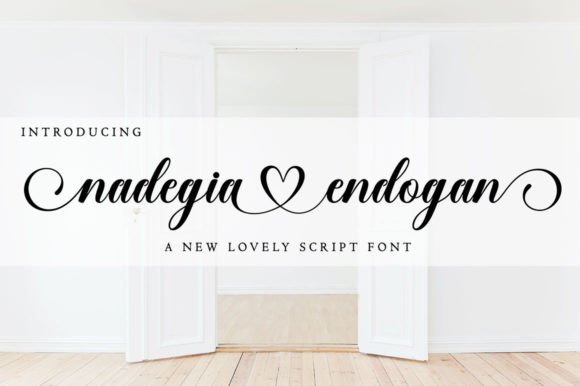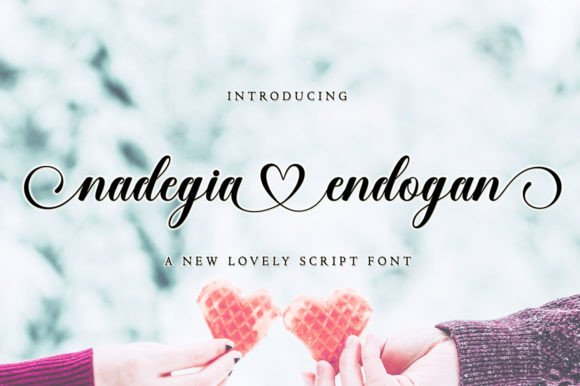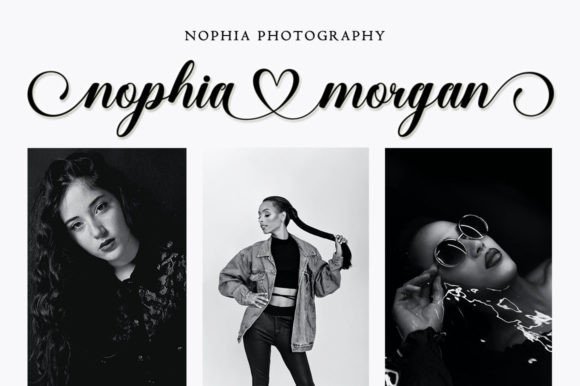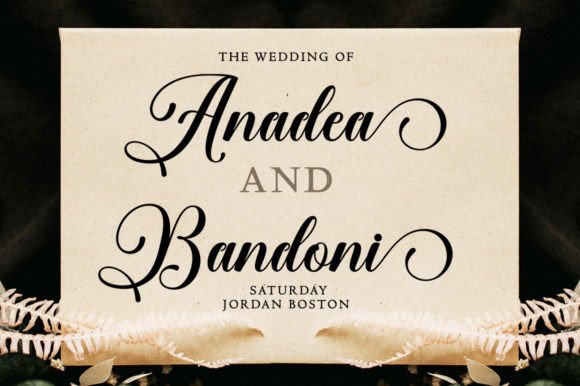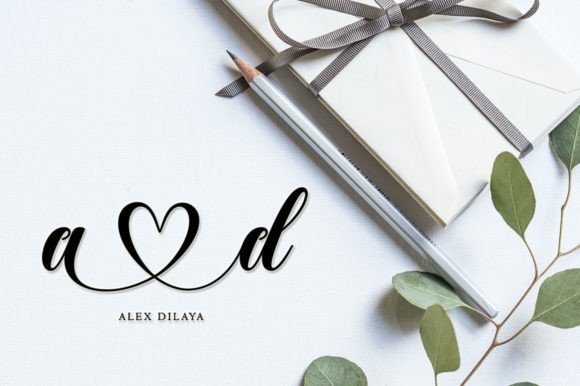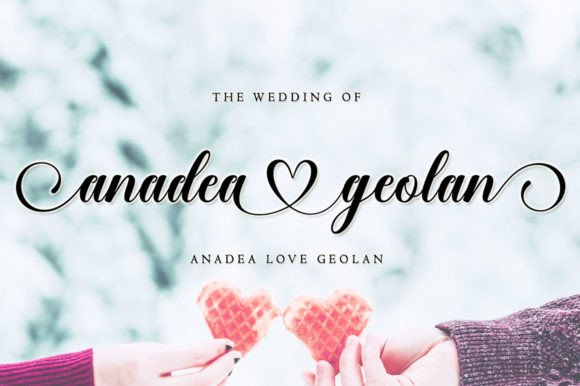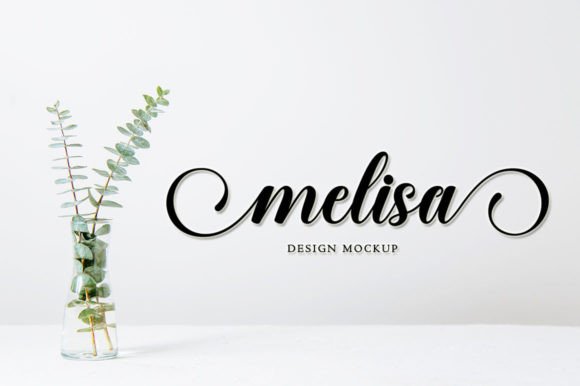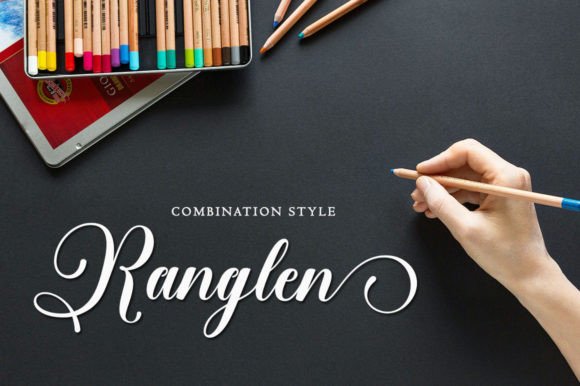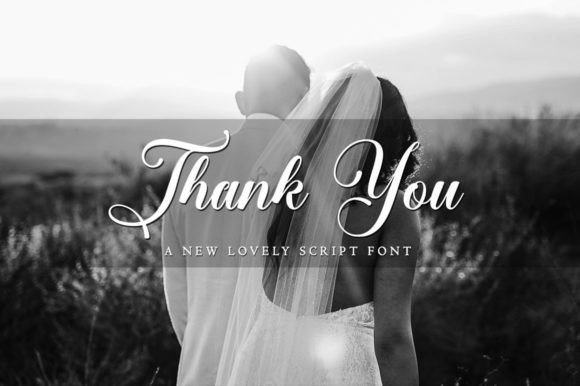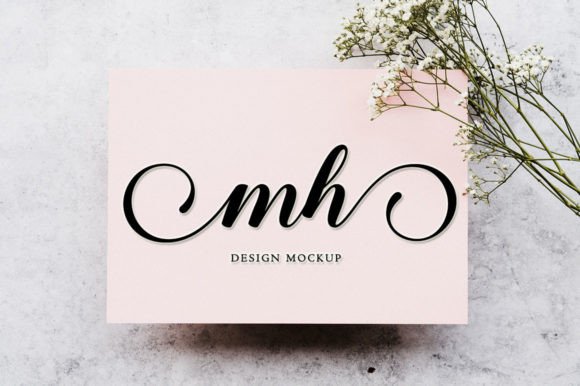
Nadegia Endogan Font
About Nadegia Endogan Font
The Nadegia Endogan Font Download is a beautiful and romantic script typeface designed to bring elegance and charm to your creative projects. Its graceful strokes and flowing forms make it an ideal choice for both personal and professional use. Whether you’re creating wedding invitations, designing logos, or developing packaging designs, Nadegia Endogan ensures that your work exudes sophistication.
Crafted with precision, this font balances a modern handwritten style with timeless calligraphic elegance. It adapts seamlessly to various design contexts, from formal projects like event stationery to casual creative endeavors like blog headers. Its versatility makes it a reliable favorite in any designer’s font library.
Features of Nadegia Endogan Font
• Romantic handwritten script style with a modern yet timeless feel
• Elegant flowing curves that add charm to any design
• Strong readability across both large and small layouts
• Versatile applications for digital and print projects
• A love-inspired aesthetic perfect for wedding and branding needs
Best Uses for Nadegia Endogan Font
• Wedding invitations and stationery – Add romance and sophistication to your special day
• Logos and branding – Perfect for boutique, lifestyle, or luxury businesses
• Product packaging – Create stylish labels for cosmetics, fashion, or artisanal products
• Greeting cards – Personalize your messages with warmth and elegance
• Social media content – Make Instagram posts and Pinterest graphics stand out
• Event promotions – Flyers, posters, and banners with a romantic touch
• Blog headers and titles – A stylish handwritten look for creative websites
Why Choose Nadegia Endogan Font
The Nadegia Endogan Font Download stands out because it combines romance with professionalism. Its handwritten script aesthetic adds a personal feel, while its refined details maintain a polished and modern look. Unlike ordinary fonts, Nadegia Endogan captures attention with its distinctive style, making it especially popular for branding, weddings, and product design.
Designers value this font for its flexibility—it works just as beautifully in an elegant wedding invitation as it does in a bold logo or fashion campaign. Its ability to adapt across multiple applications ensures long-term usability in your creative projects.